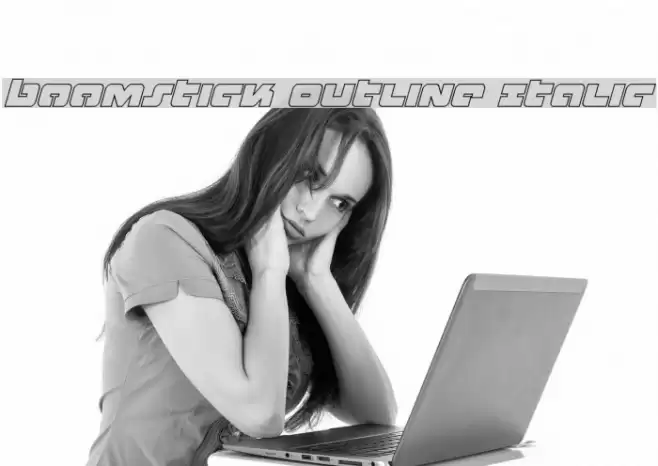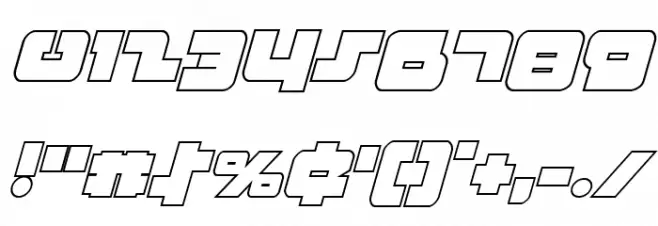
Boomstick Outline Italic Font
Boomstick Outline Italic Description
This font features a bold, geometric outline style with an italic slant, giving it a dynamic and futuristic appearance. The characters are constructed with sharp angles and straight lines, creating a sense of movement and energy. The outline design adds a layer of complexity, making it stand out in any design project. The font maintains a consistent weight throughout, ensuring readability while still offering a unique aesthetic. Its modern and edgy look makes it suitable for a variety of creative applications.
A bold, geometric outline font with an italic slant, offering a modern and dynamic look from Sci-fi fonts.
- Proposed Projects: Ideal for futuristic designs, tech-related branding, video game titles, and eye-catching posters.